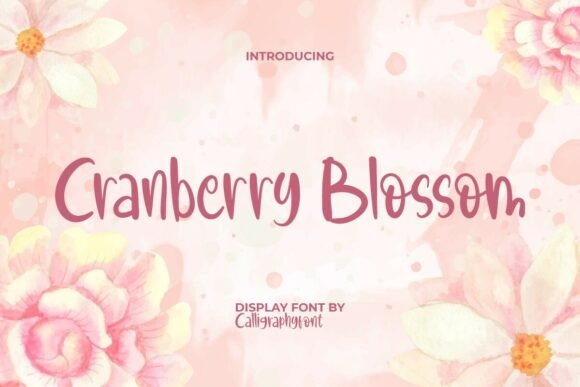
Cranberry Blossom Font: A Sweet and Whimsical Script for Your Creative Projects
The world of typography is vast and diverse, with countless fonts to choose from, each with its unique character and charm. If you’re looking for a font that exudes warmth, charm, and a hint of watercolor whimsy, then Cranberry Blossom is an excellent choice. This beautiful script font is perfect for a wide range of creative projects, from wedding suites and spring promotions to packaging, quotes, and social posts.
What Makes Cranberry Blossom Font So Special?
Cranberry Blossom font pours sweet personality into every stroke. Its hand-painted curves, gentle texture, and lively bouncy rhythm make words feel freshly lettered, while smooth rounded terminals and an easy monoline flow keep captions clear at a glance. The font’s friendly sway and blossom-like loops add a touch of elegance and sophistication, making it perfect for projects that require a personal and heartfelt touch.
Key Features of Cranberry Blossom Font
- Hand-painted curves: Give your text a unique, handcrafted feel with the font’s beautiful, hand-painted curves.
- Gentle texture: Add a touch of warmth and coziness to your text with the font’s gentle texture.
- Lively bouncy rhythm: Make your text feel fresh and energetic with the font’s lively bouncy rhythm.
- Smooth rounded terminals: Keep your captions clear and easy to read with the font’s smooth rounded terminals.
- Easy monoline flow: Ensure a smooth flow of text with the font’s easy monoline flow.
- Blossom-like loops: Add a touch of elegance and sophistication to your text with the font’s beautiful blossom-like loops.
Perfect for a Wide Range of Creative Projects
Cranberry Blossom font is versatile and can be used for a wide range of creative projects, including:
Project Ideas
- Wedding suites: Add a touch of romance and elegance to your wedding stationery with Cranberry Blossom font.
- Spring promotions: Make your spring promotions feel fresh and vibrant with the font’s lively and energetic feel.
- Packaging: Add a personal touch to your product packaging with the font’s unique and handcrafted feel.
- Quotes: Make your quotes feel inspiring and uplifting with the font’s beautiful and elegant curves.
- Social posts: Add a touch of personality and charm to your social media posts with Cranberry Blossom font.
Tips for Using Cranberry Blossom Font
Here are some tips for using Cranberry Blossom font in your creative projects:
Tips and Tricks
- Use it large for dreamy headlines: Make a statement with Cranberry Blossom font by using it large for dreamy headlines.
- Pair with a neat sans for modern contrast: Create a beautiful contrast by pairing Cranberry Blossom font with a neat sans serif font.
- Take advantage of airy spacing and generous x-height: Make the most of the font’s airy spacing and generous x-height to create a beautiful and easy-to-read text.
In conclusion, Cranberry Blossom font is a beautiful and versatile script font that is perfect for a wide range of creative projects. Its unique and handcrafted feel, combined with its technical features, make it an excellent choice for anyone looking to add a touch of warmth, charm, and whimsy to their text.